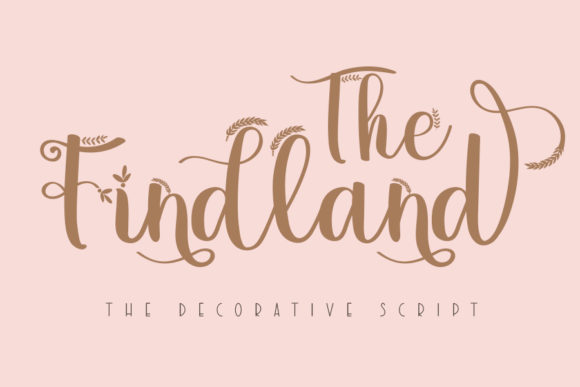
Step into the enchanting realm of The Findland Font, a captivating script font that will transform your creative visions into extraordinary works of art. This exquisite font whispers of elegance and joy, effortlessly capturing the magic of life's special moments.
Immerse yourself in the whimsical curves and charming details of this well-balanced font. Each letter dances across the page like a delicate brushstroke, evoking a sense of delicate beauty. Whether you seek to add a touch of sophistication to your Instagram posts or desire to create enchanting handwritten invitations, The Findland Font will elevate your projects with an air of timeless grace.
Indulge in the undeniable allure of this font, meticulously crafted to inspire and delight. Its versatile nature seamlessly adapts to a myriad of creative endeavors, from heartfelt wedding vows to captivating social media posts. The Findland Font possesses an inherent magnetism that will draw attention to your words, making them resonate with an unforgettable charm.
Elevate your designs to new heights with The Findland Font. Its delicate strokes and enchanting aura will infuse your work with a touch of magic. Experience the joy of creating with this font and watch as your creative ideas blossom into breathtaking realities.